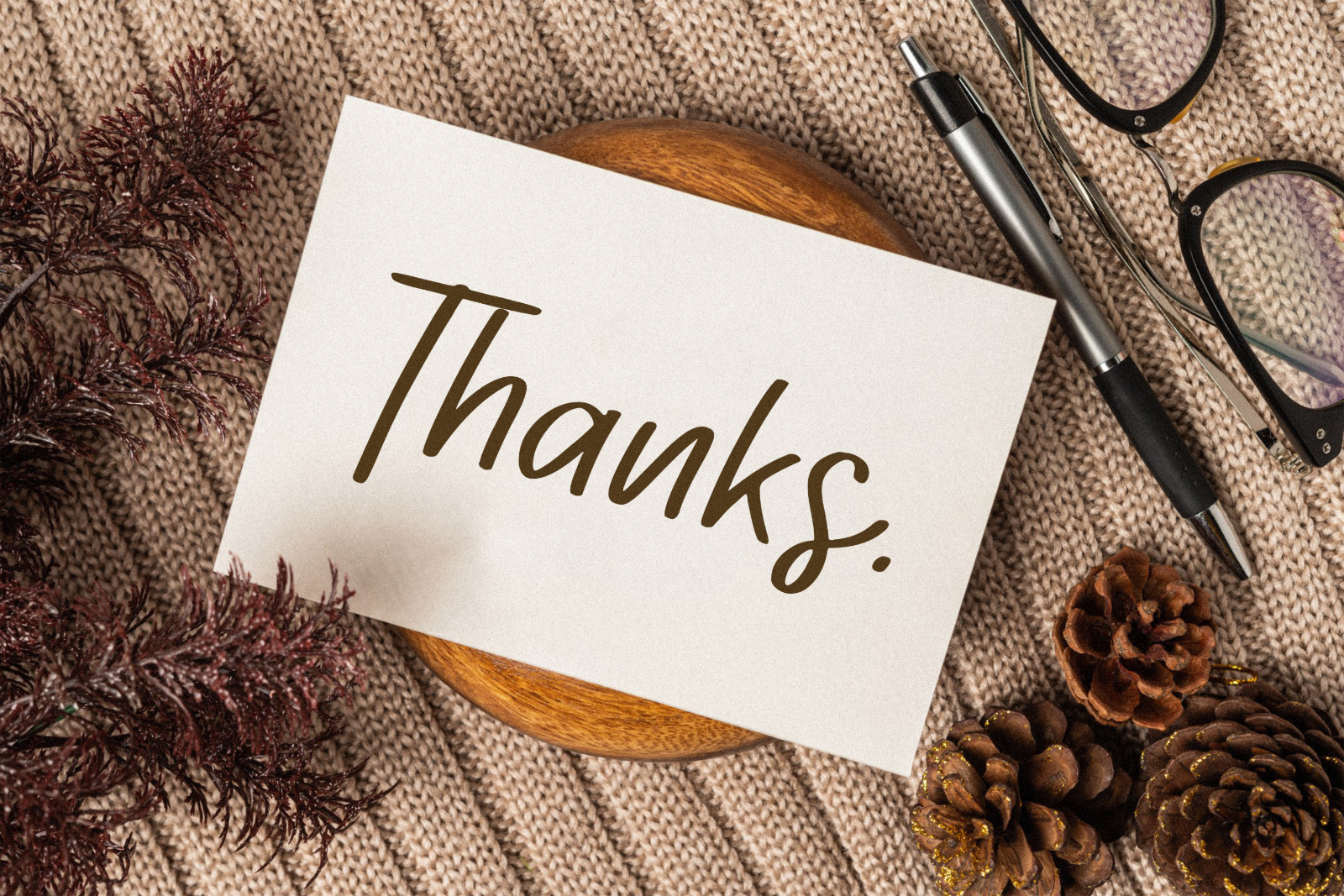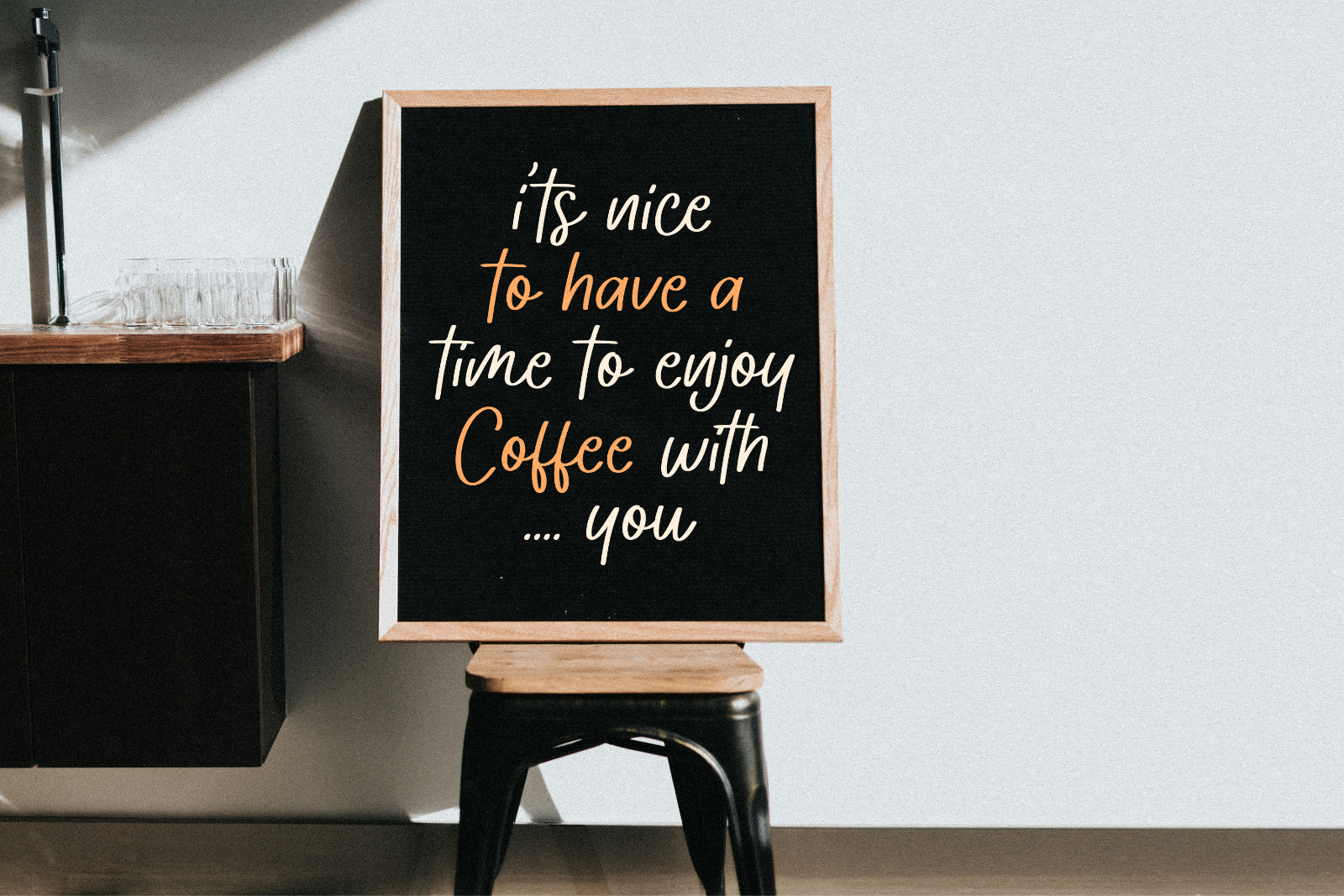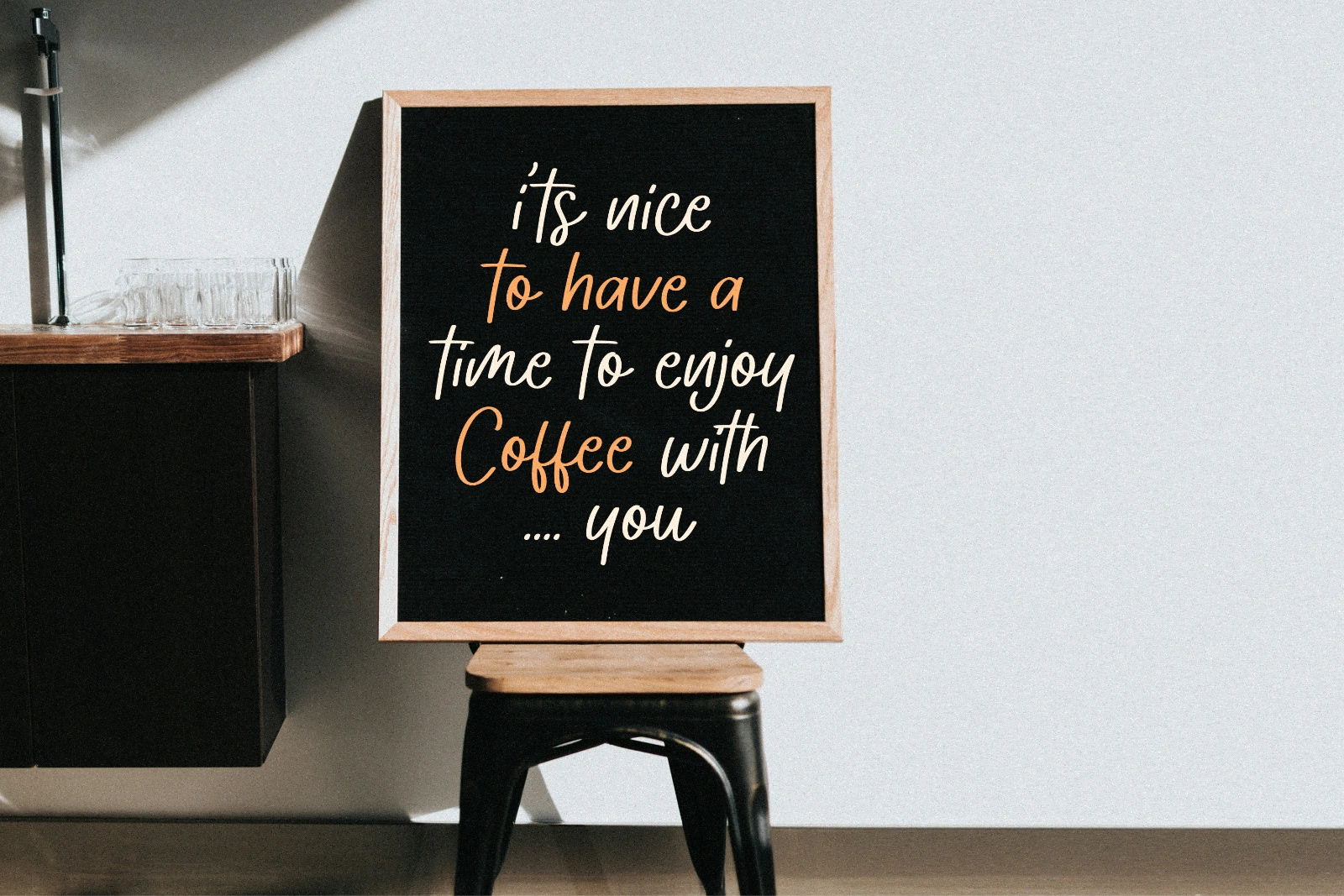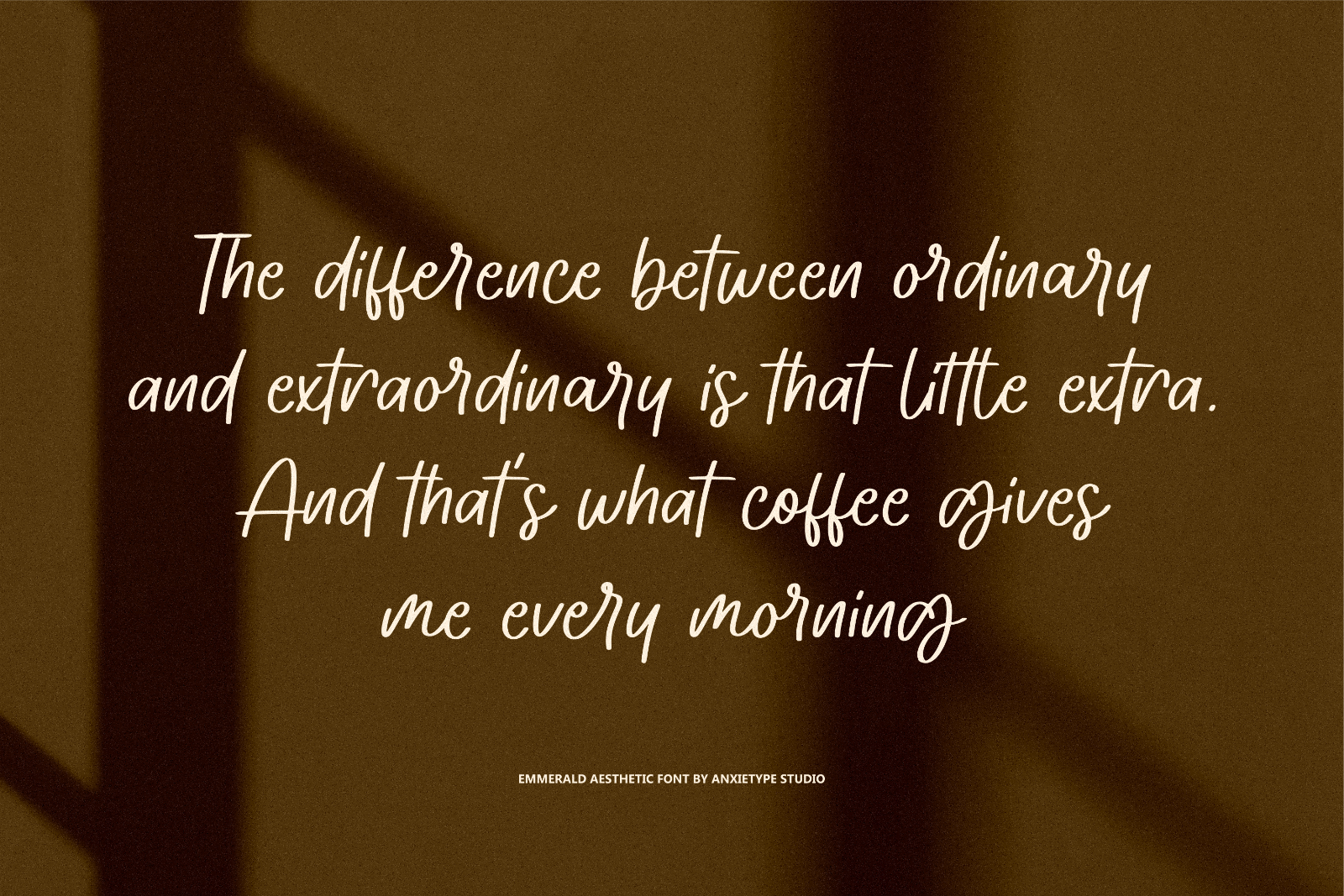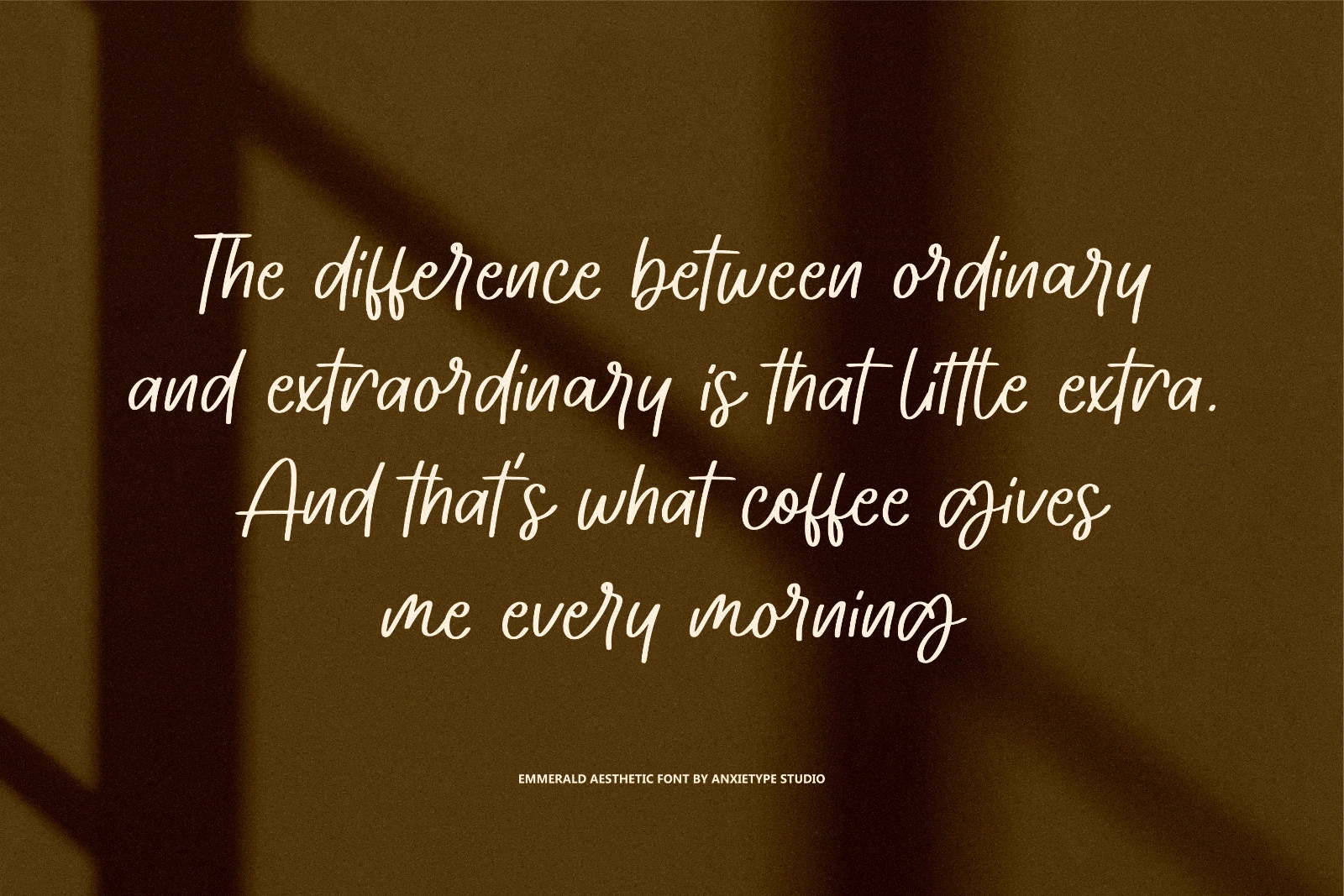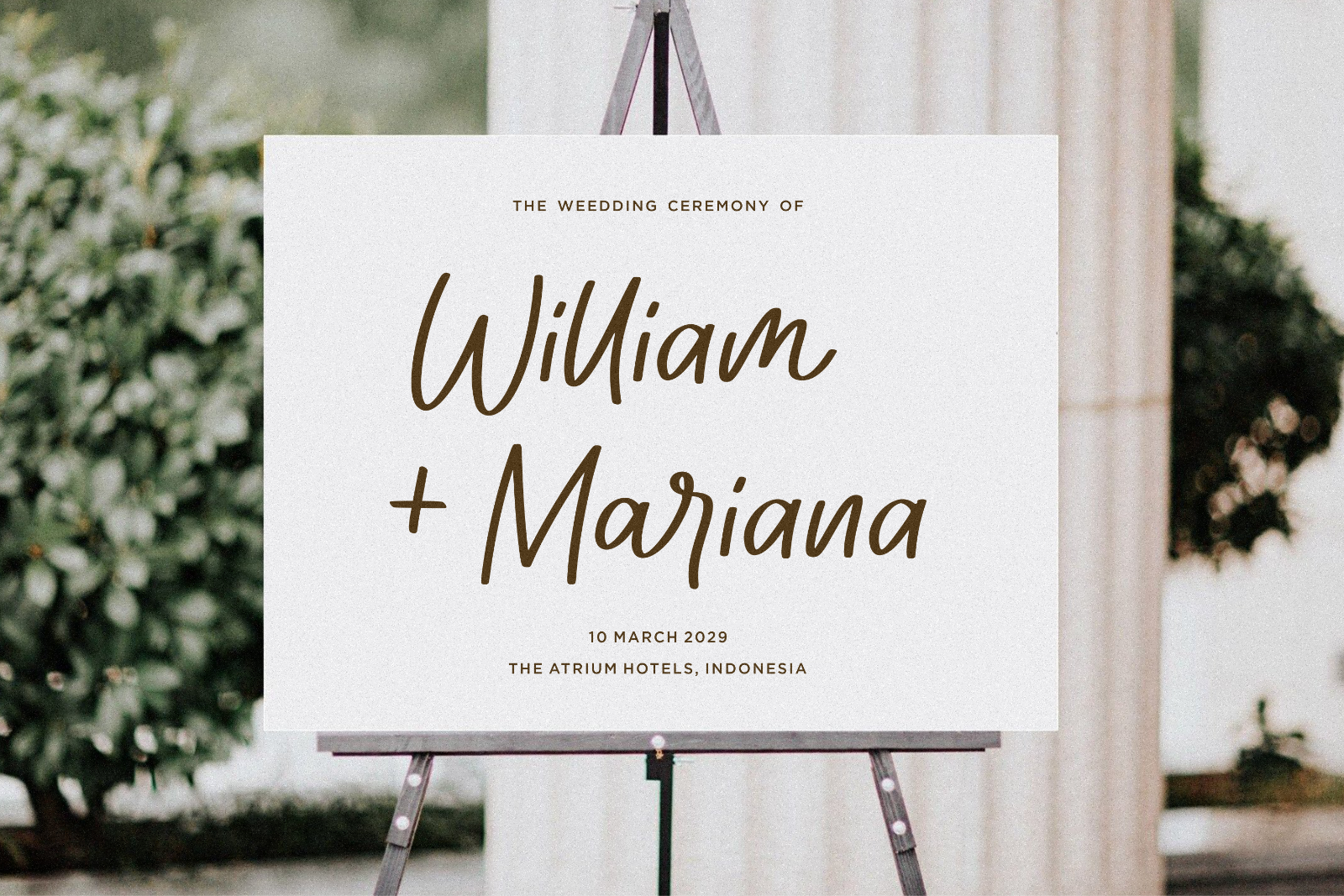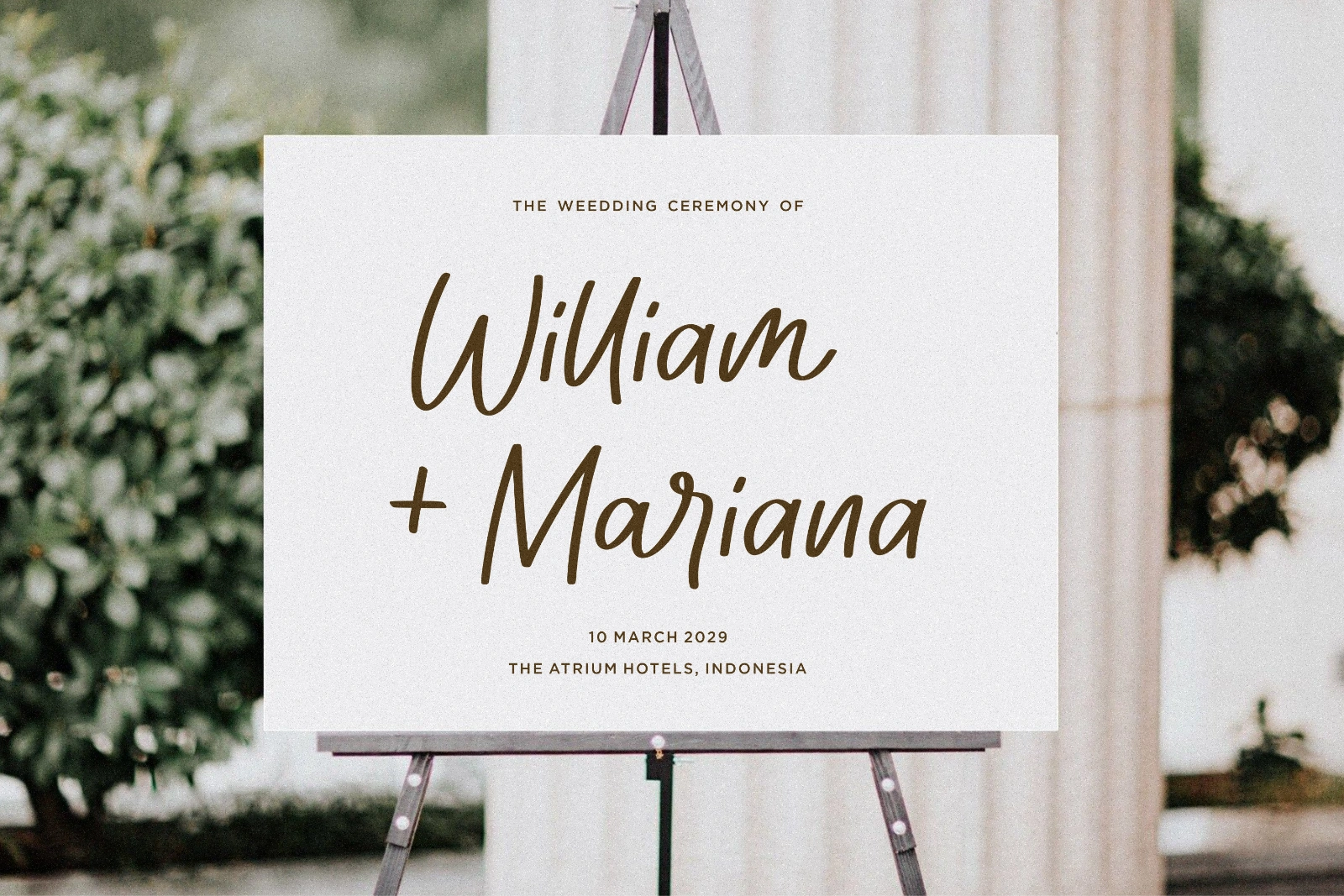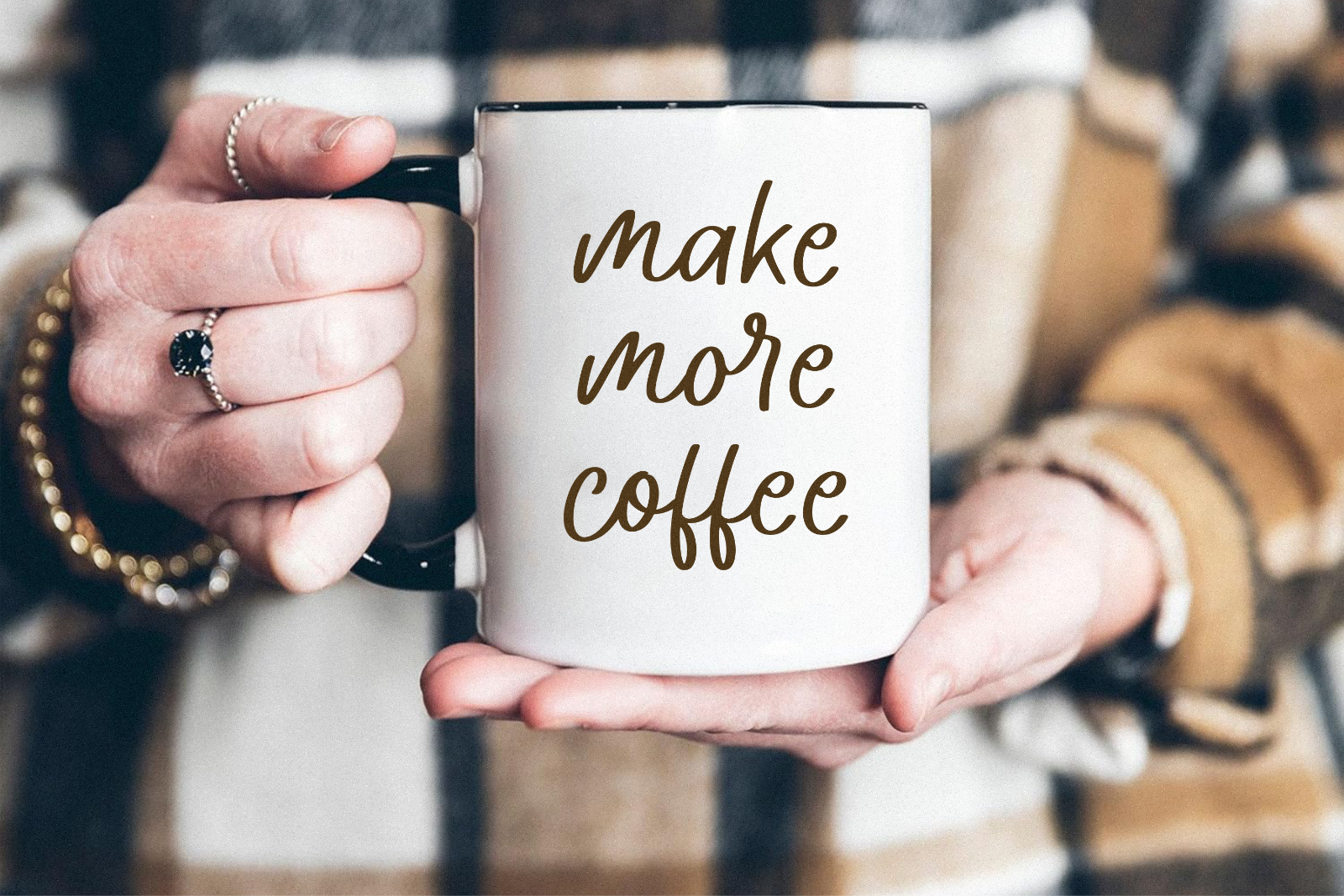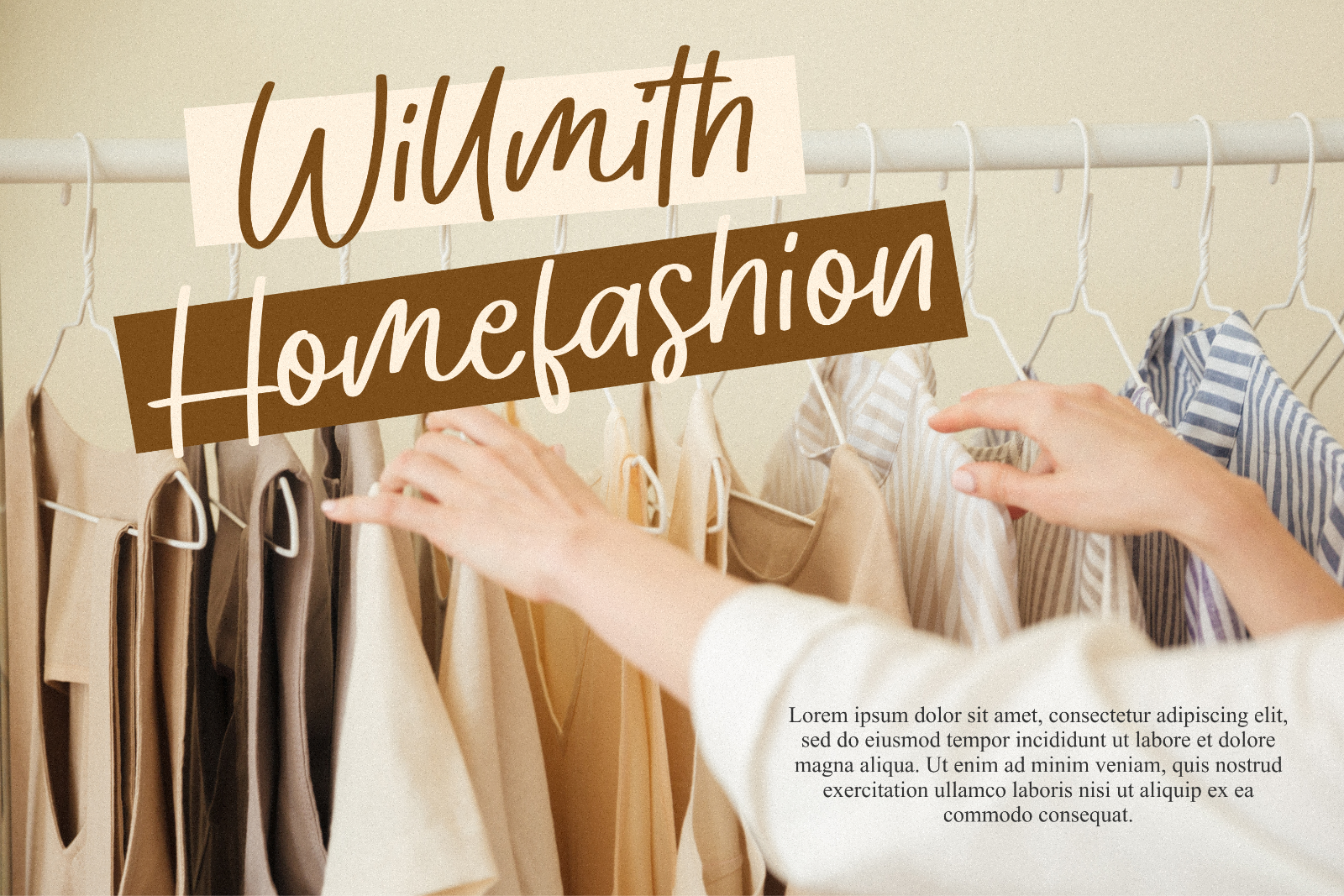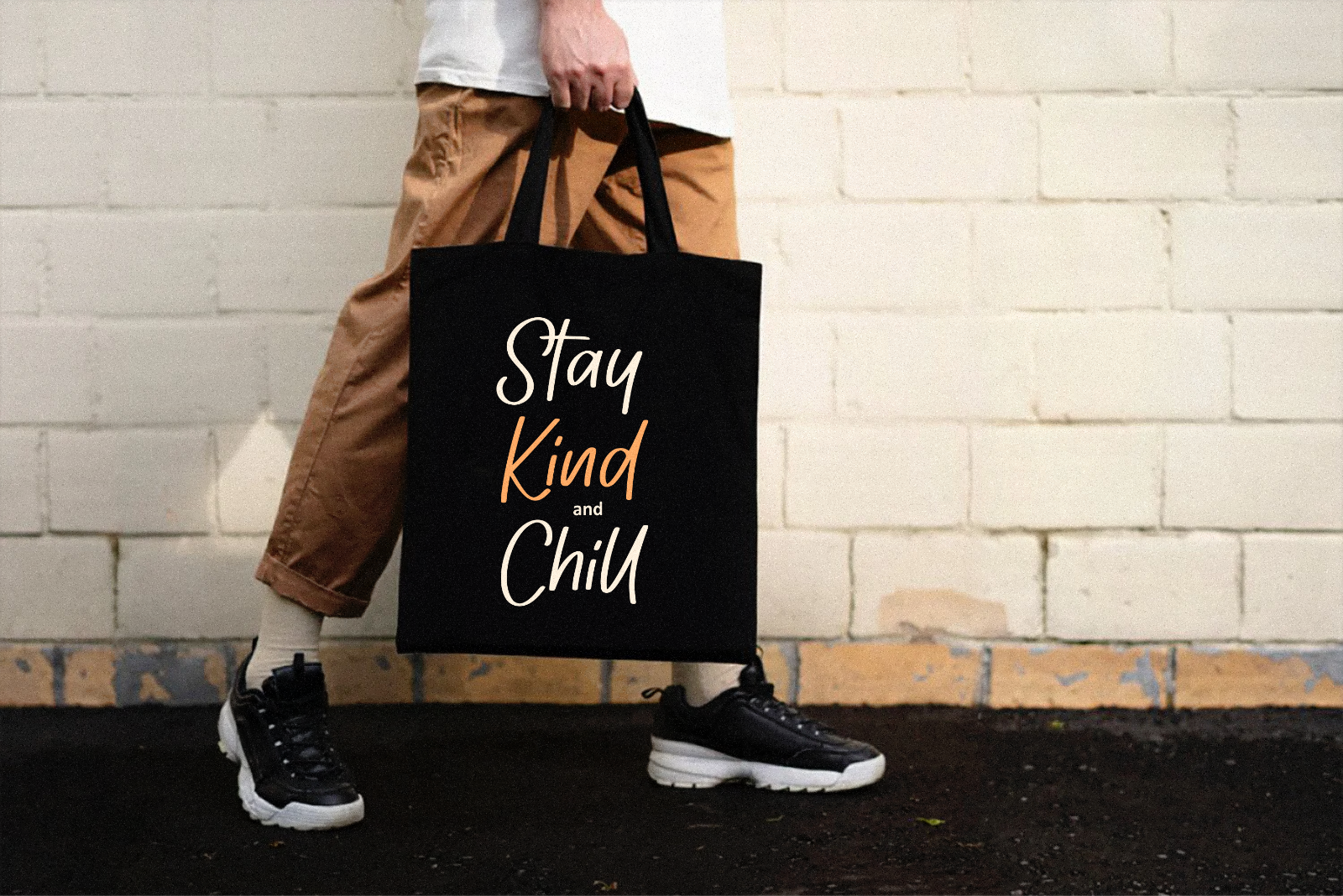
Introducing Farmhome Memoria - the expressive handwritten script font brought to life by the brilliant minds at Anxietype Foundry. Expect plenty of warmth and character with every stroke of this unique typeface. It's the ideal choice for those looking to make an impact, whether it's on product packaging, a personal branding project, or a chic magazine piece. Social media creatives will love its modern charm, while those planning a wedding might find it the dreamy detail needed to bring an invitation suite together. Simply put, Farmhome Memoria is designed to boldly stand out against any background, while still providing an understated elegance to whatever words it graces.